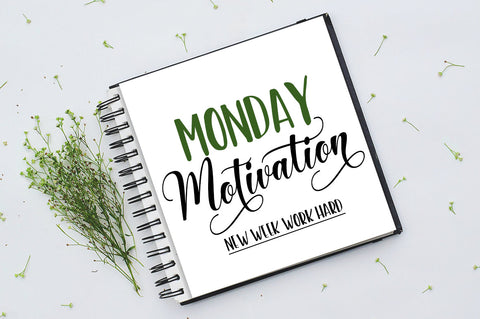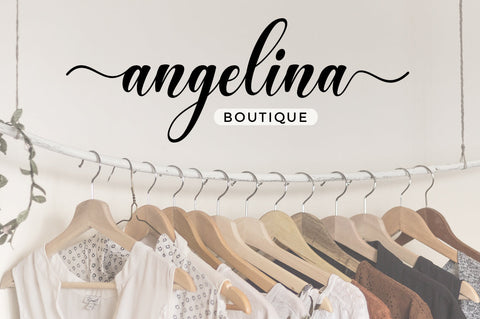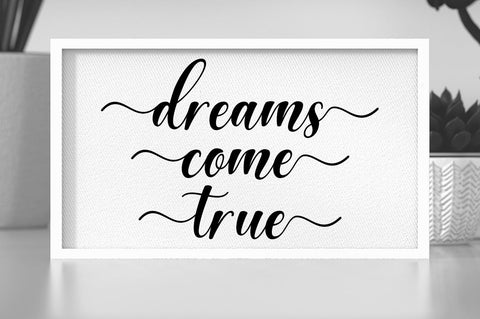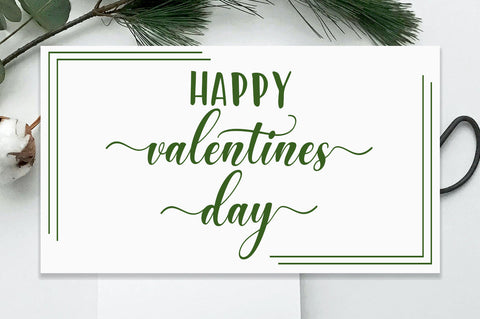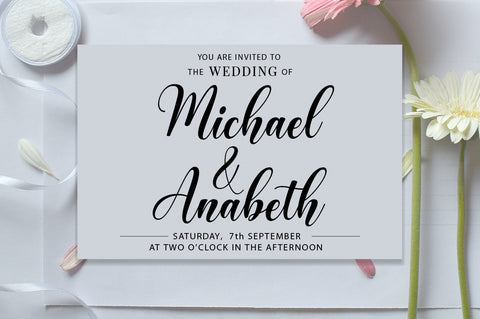
Bestina Script
Bestina Script is a very cute, elegant and unique handwritten font. Expertly designed to be a true favourite, this font has the potential to take your creative ideas to the highest level!
This font is PUA encoded which means you can access all the glyphs and sweeps easily!
Bestina Script is attractive because it is sleek, clean, feminine, sensual, glamorous, simple and very easy to read, thanks to its many fancy lettering connections. I also offer a decent number of style alternatives for all letters. Classic style is very suitable to be applied in various formal forms such as invitations, labels, restaurant menus, logos, fashion, make up, stationery, novels, magazines, books, greeting/wedding cards, packaging, labels or all kinds of advertisements. for your purposes.